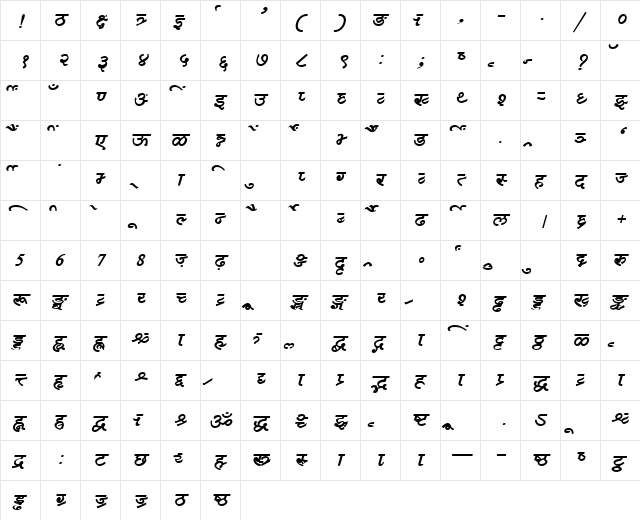
AkrutiDevHarsha BoldItalic Font Preview
Design Context for AkrutiDevHarsha Typeface
AkrutiDevHarsha offers clean, dependable letterforms without strong stylistic allegiance, making it a practical choice for designers who need flexibility. The dynamic lean of this cut emphasises speed and emphasis in any layout. Its bold stroke weight gives it real presence on the page.